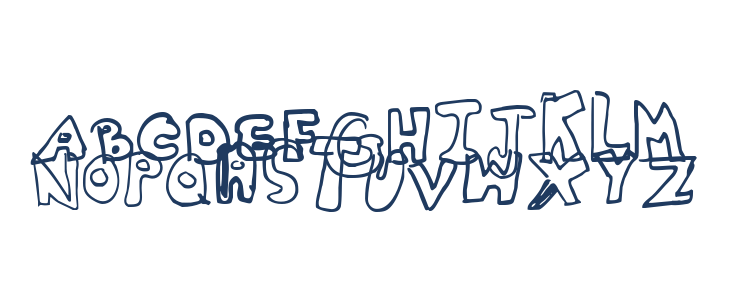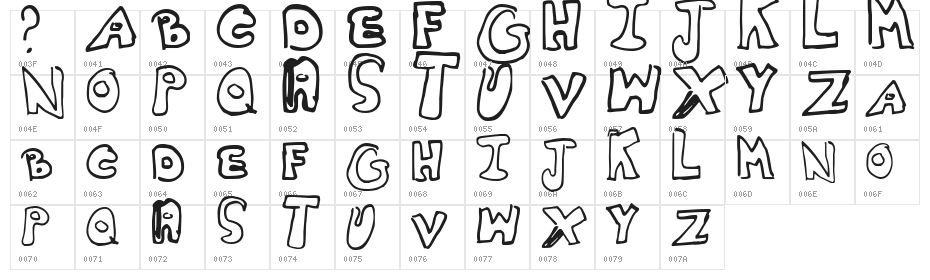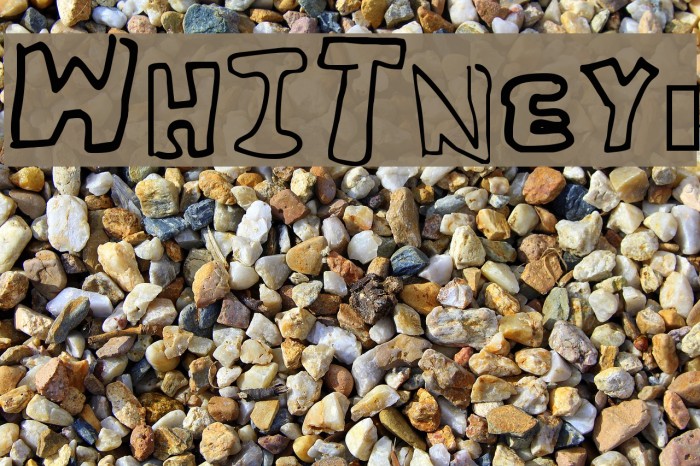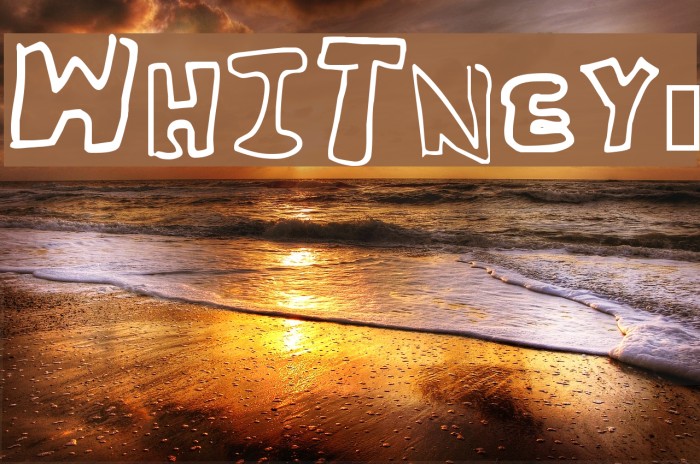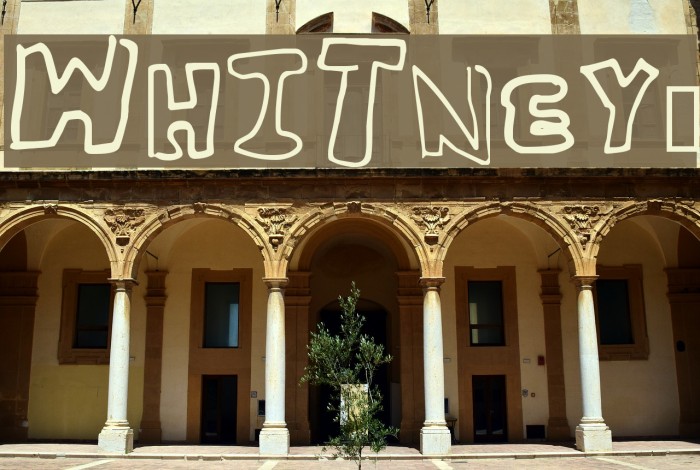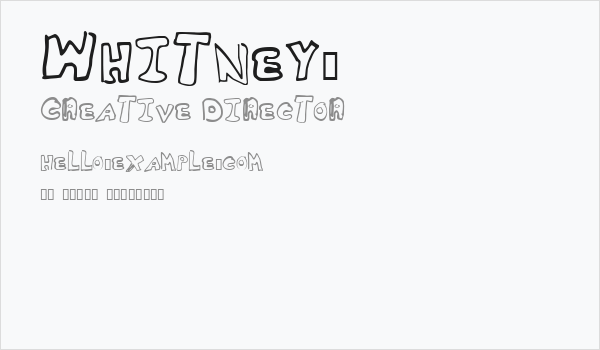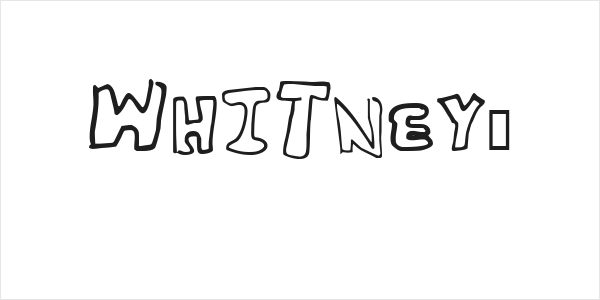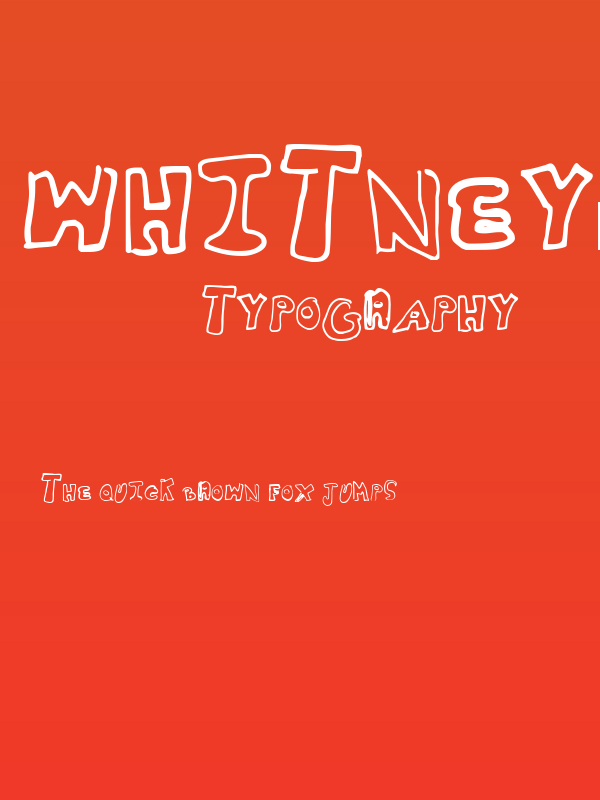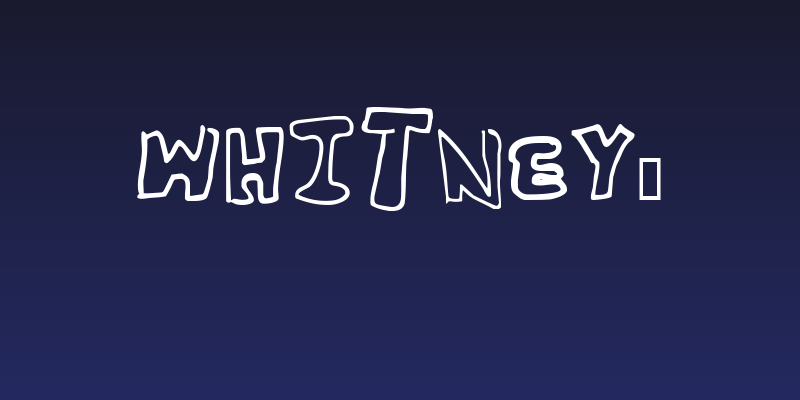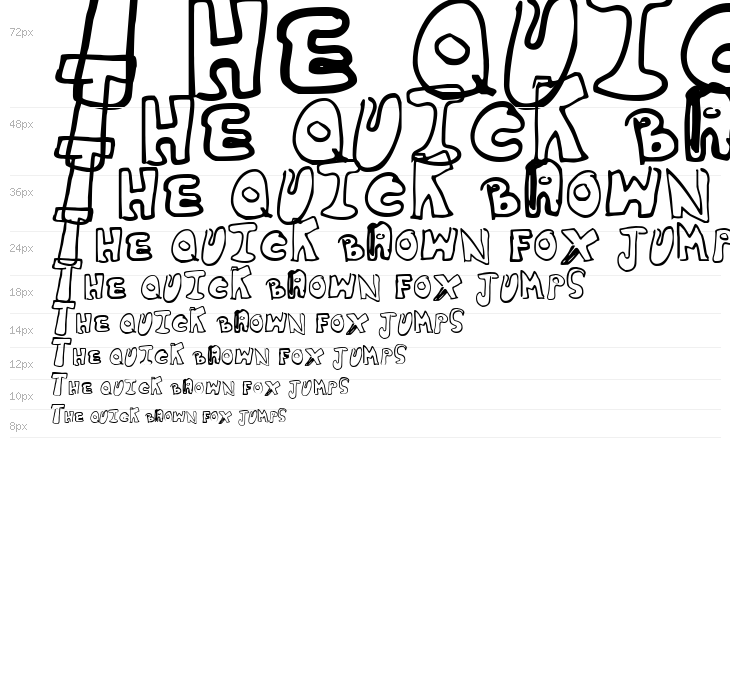
Whitney2 Font
Whitney2 Description
This playful and bold font features a hand-drawn, cartoonish style with thick, uneven strokes that give it a lively and informal appearance. The characters are outlined with a bold black line, creating a striking contrast against the white interior. The uppercase and lowercase letters maintain a consistent style, with exaggerated curves and angles that add to the whimsical feel. The font's irregular shapes and varying line thickness contribute to its dynamic and energetic look, making it ideal for creative and fun projects.
| Overall Style | Playful, Cartoonish, Informal |
| Proposed Projects | Perfect for children's books, comic strips, playful branding, and creative posters. |